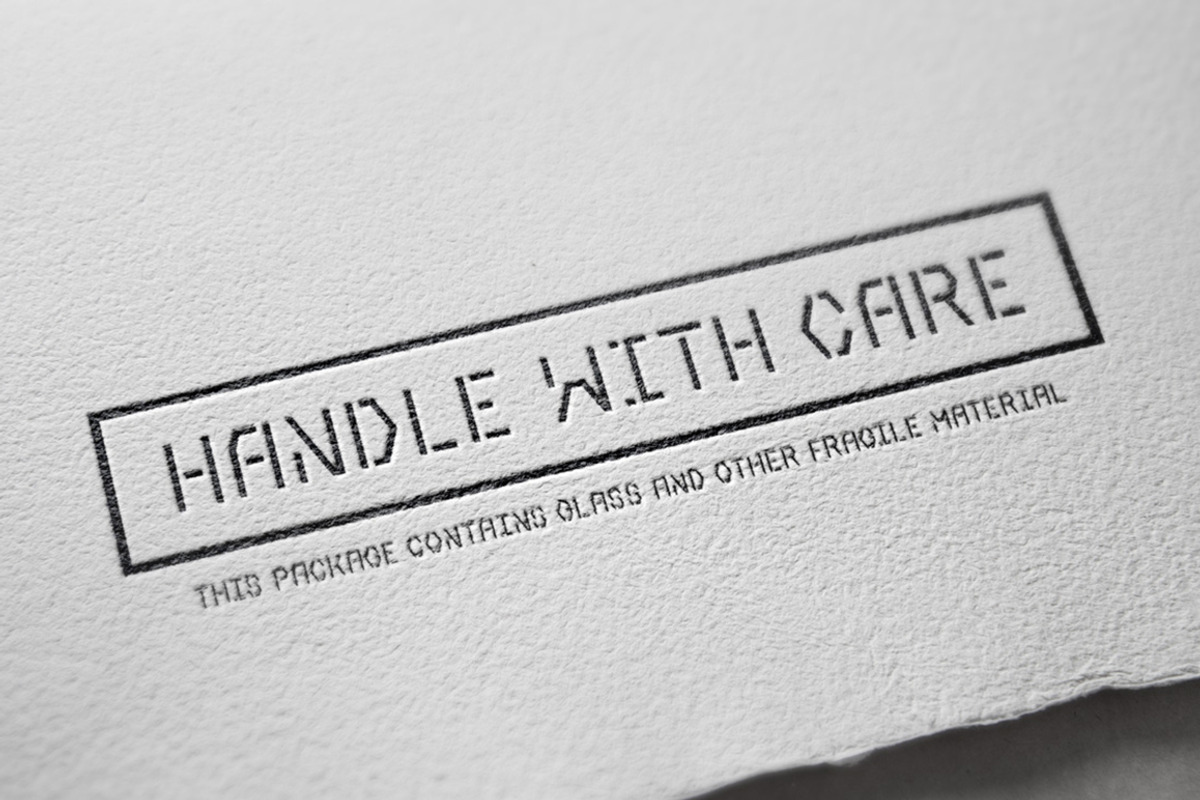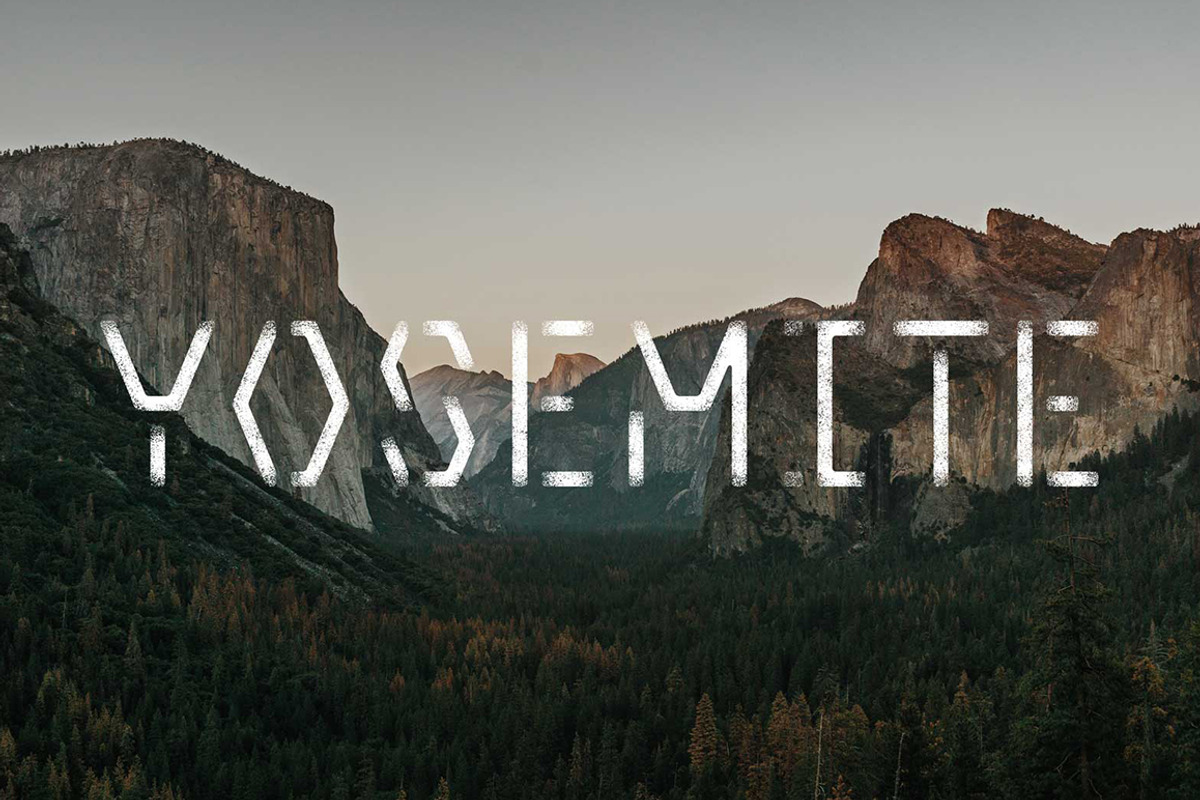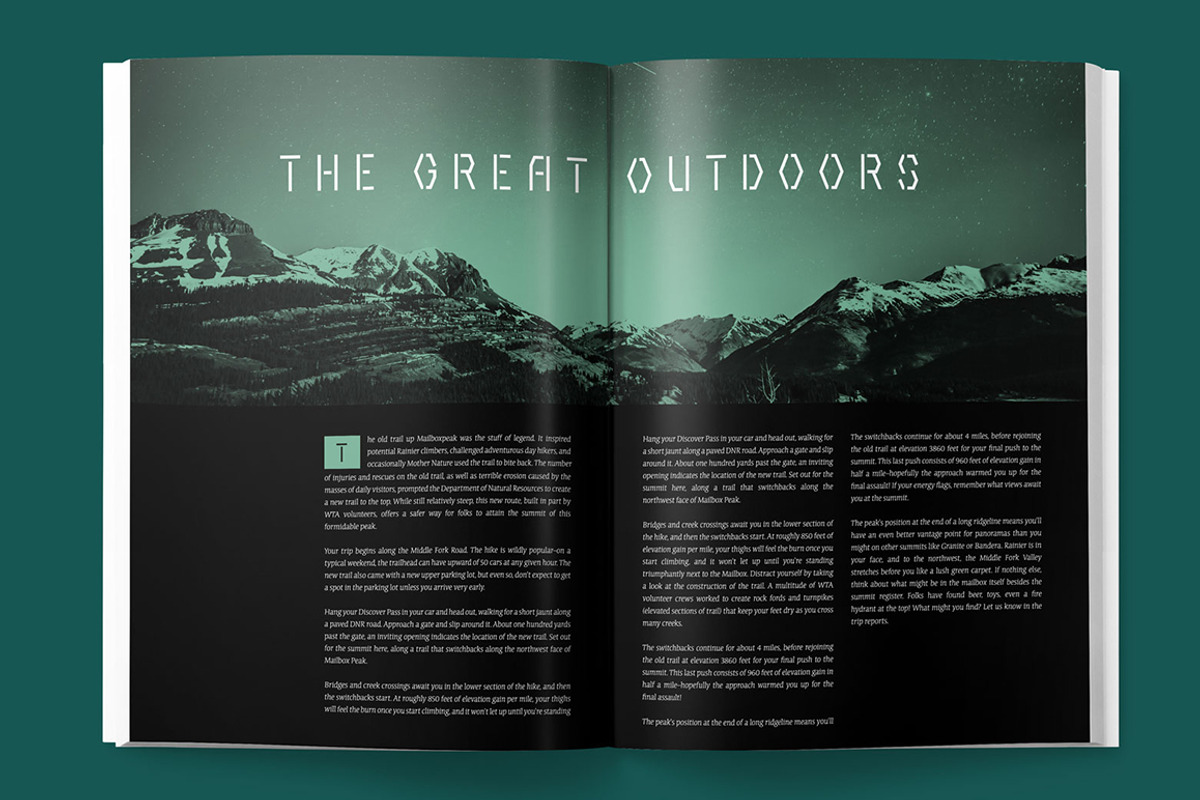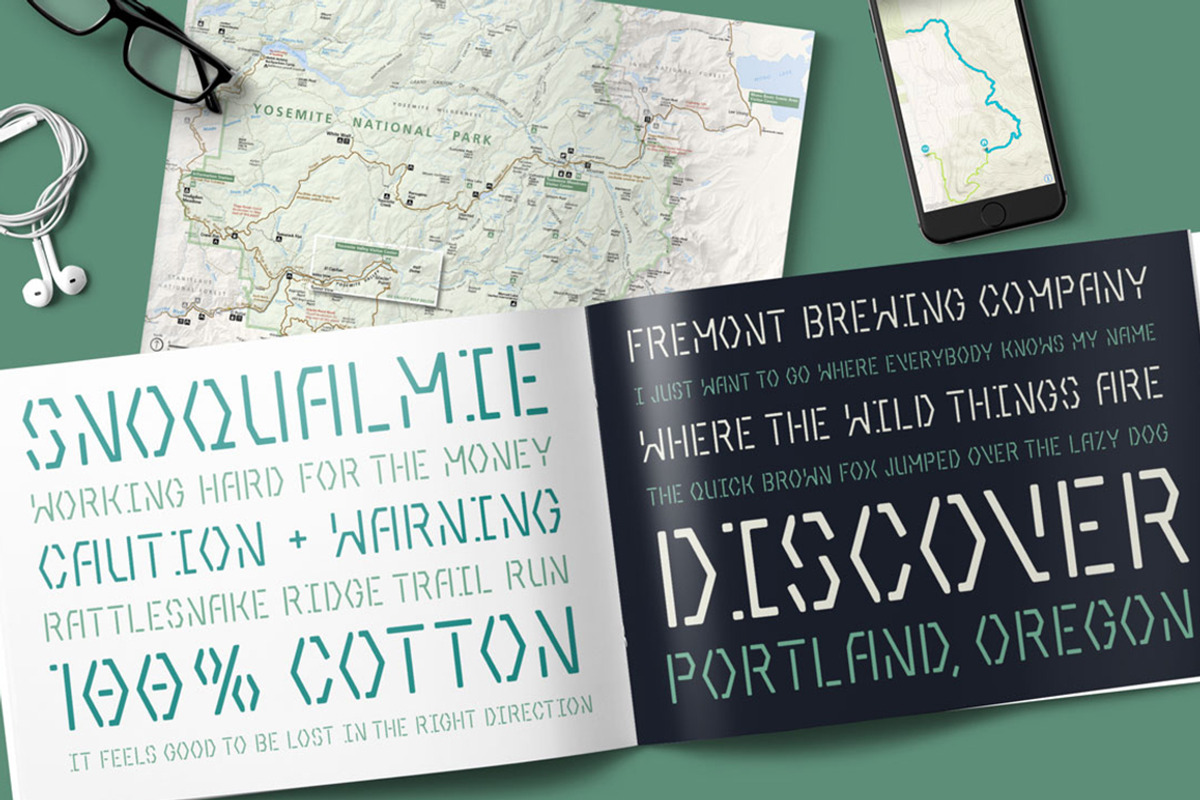
Aventuras Stencil Typeface
Aventuras Stencil Typeface by Thomas Ramey Designs is a font selected for branding, posters, packaging, typography.
- The font includes uppercase letters, numbers, and punctuation, offering versatility and flexibility in your design work.
Aventuras Stencil Typeface by Thomas Ramey Designs fits naturally into Branding, posters, packaging, typography.